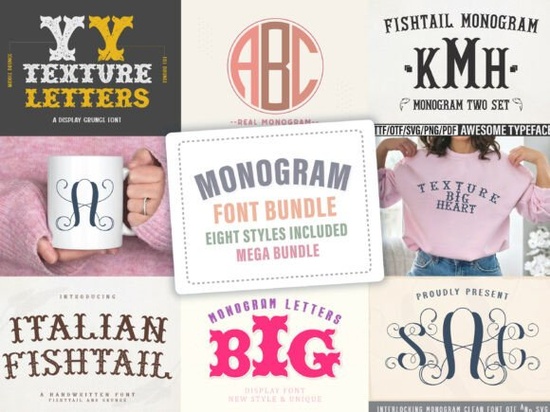
If you are looking to add a personalized touch to your wedding invitations, custom apparel, or boutique branding, the Monogram Bundle Font is a highly practical choice. This collection gives you eight distinct typographic styles in one package, saving you from buying individual files. Whether you are a print-on-demand seller managing a busy shop or a craft hobbyist working on weekend projects, having a wide variety of lettering styles ready to go makes your daily workflow much smoother and more efficient.
What specific styles are included in this typography collection?
When you open the downloaded files, you will immediately notice the mix of traditional and modern aesthetics. The collection includes distressed grunge textures that look authentic on vintage t-shirt designs and retro posters. You also get true circular monograms that are perfect for wax seal stickers, custom stamps, and boutique logos. For those working on formal events, the elegant interlocking scripts provide a sophisticated touch for wedding stationery. Additionally, the whimsical fishtail serifs add a playful, retro vibe to social media graphics and packaging. Having these different structural weights and customizable personalities means you can match the exact mood of your project without starting from scratch.
How can small businesses and crafters use these lettering styles?
For boutique apparel designers, the distressed and grunge options work beautifully on dark-colored hoodies, denim jackets, and canvas tote bags. If you are creating custom gifts for a local market, the circular styles look fantastic on ceramic mugs, coasters, and wooden signs. You can easily pair these monograms with other display typefaces to create a cohesive brand identity for your shop. For example, if you are designing a rustic western-themed product line, you might combine a circular monogram with a bold cowboy saloon font for your main headings to sell the theme.
If your project needs a more playful, energetic vibe for a local studio flyer or kids' clothing line, mixing a whimsical script with a lively dance font can create a fun and dynamic contrast. For a softer, more organic look, try pairing the elegant interlocking scripts with a gentle little pickie font to keep the overall design feeling approachable and sweet.
Are these typefaces easy to use for beginners and hobbyists?
What makes this a good value for independent creators?
Quick tips for getting the best results with your new files
- Test your physical cuts: Always run a small test cut on your vinyl, cardstock, or paper before doing a full batch to ensure the fine details and thin strokes hold up properly.
- Pair your fonts carefully: When mixing these intricate monograms with other text elements, keep your secondary fonts simple and clean so the detailed lettering remains the focal point.